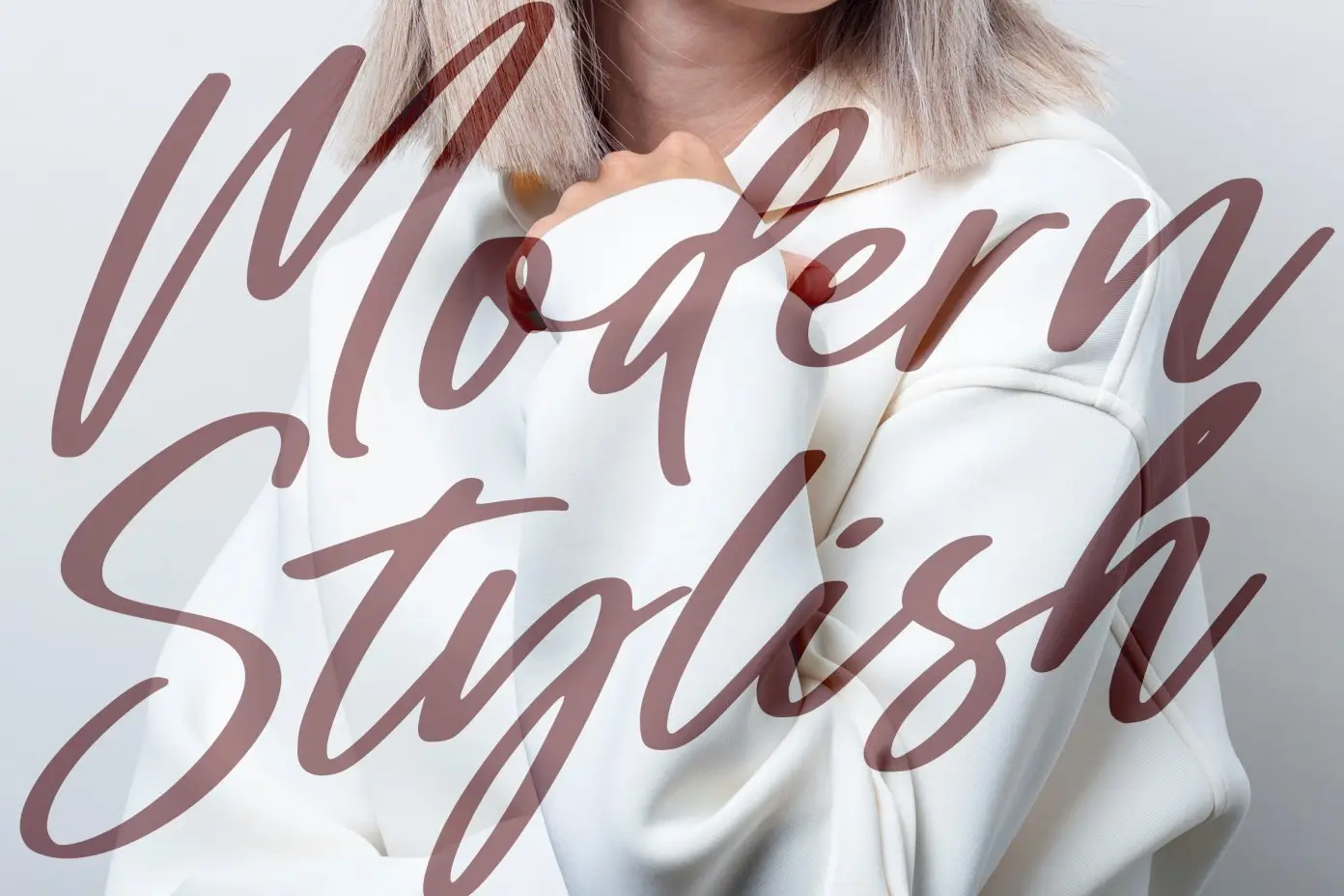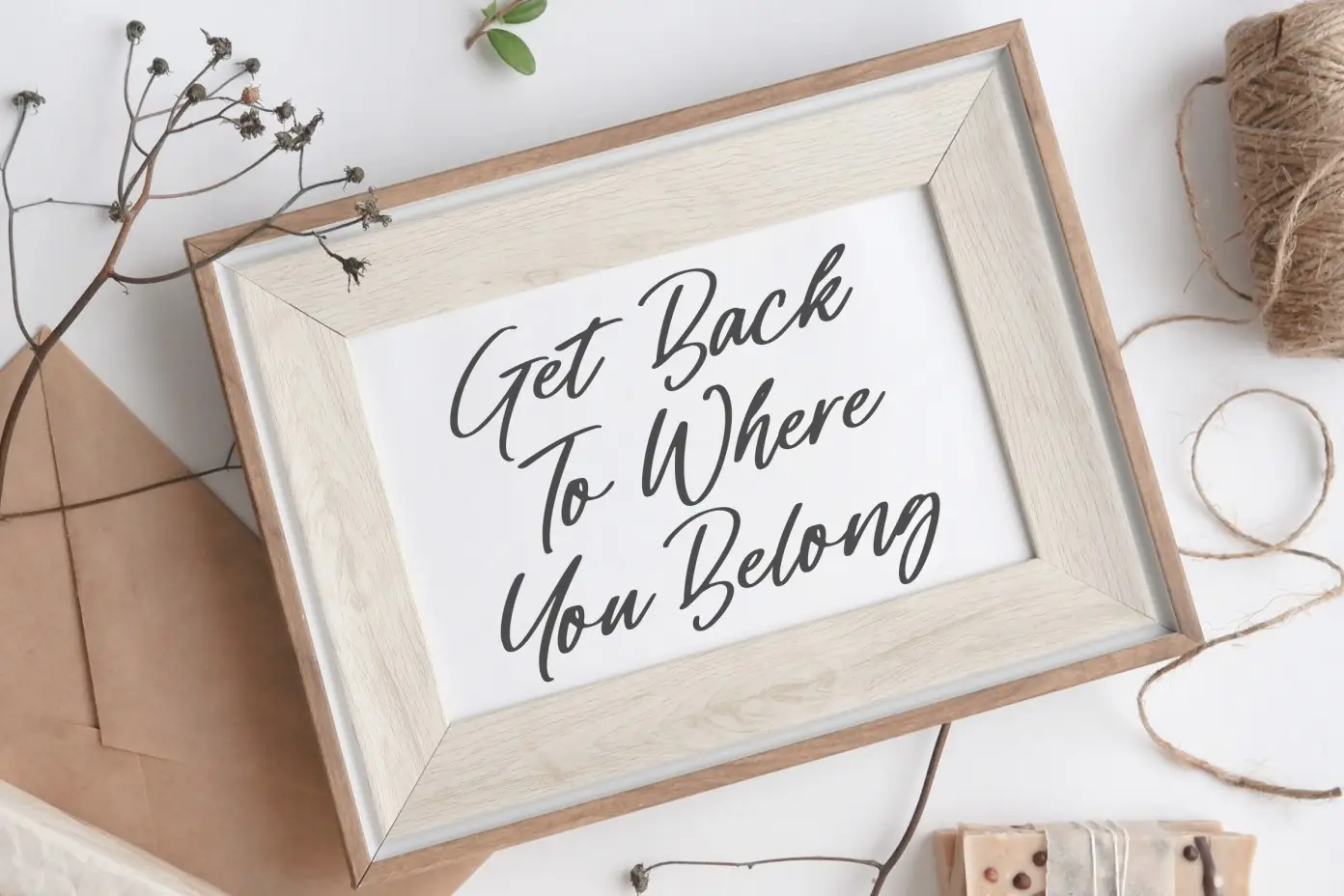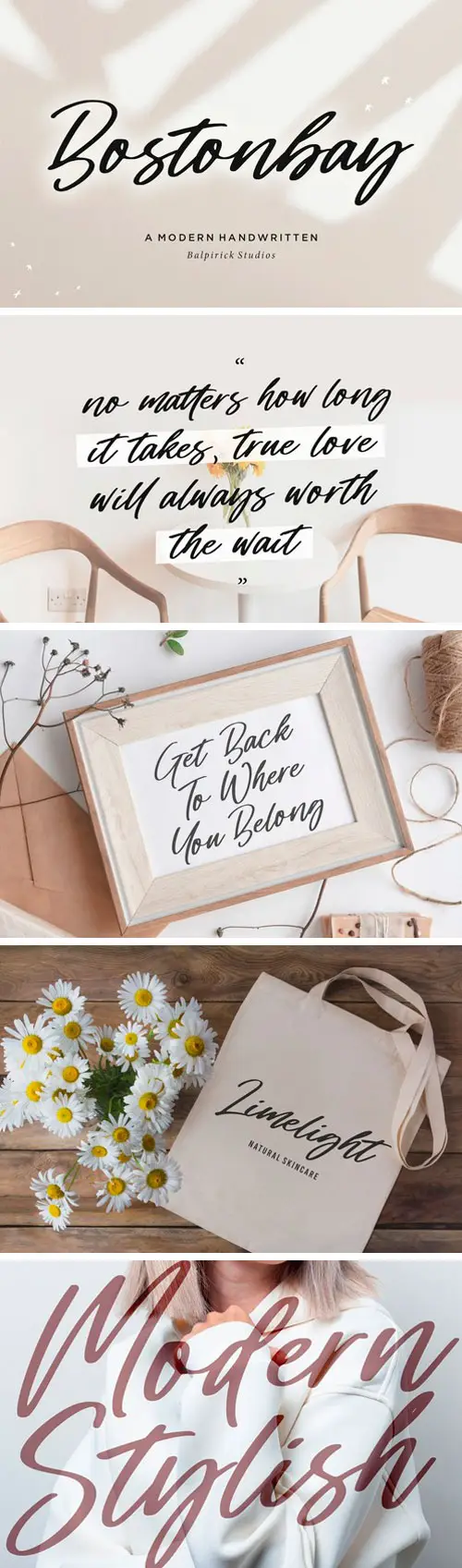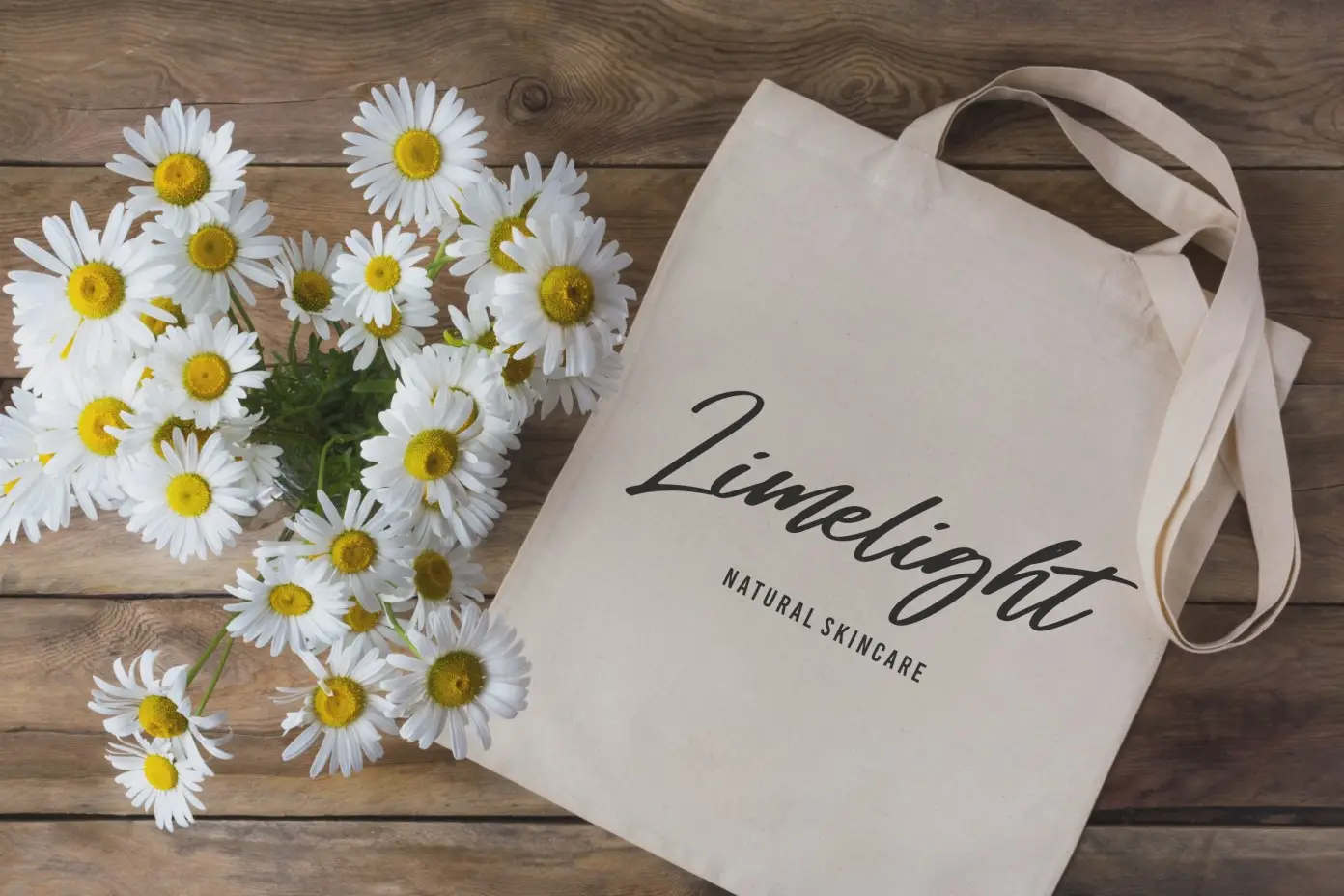
Bostonbay Script Font
The Bostonbay Script Font is a beautifully crafted typeface that combines elegance with a modern touch. Perfect for a variety of design projects, this font features a flowing script style that adds a personal and artistic flair to your work.
• Stylish script design with a contemporary feel
• Uppercase and lowercase letters, numerals, and punctuation
• Style: Script
• Weight: Regular
• Ideal for branding, logos, and invitations
• Great for web and print applications
• Use in UI design to add a personal touch